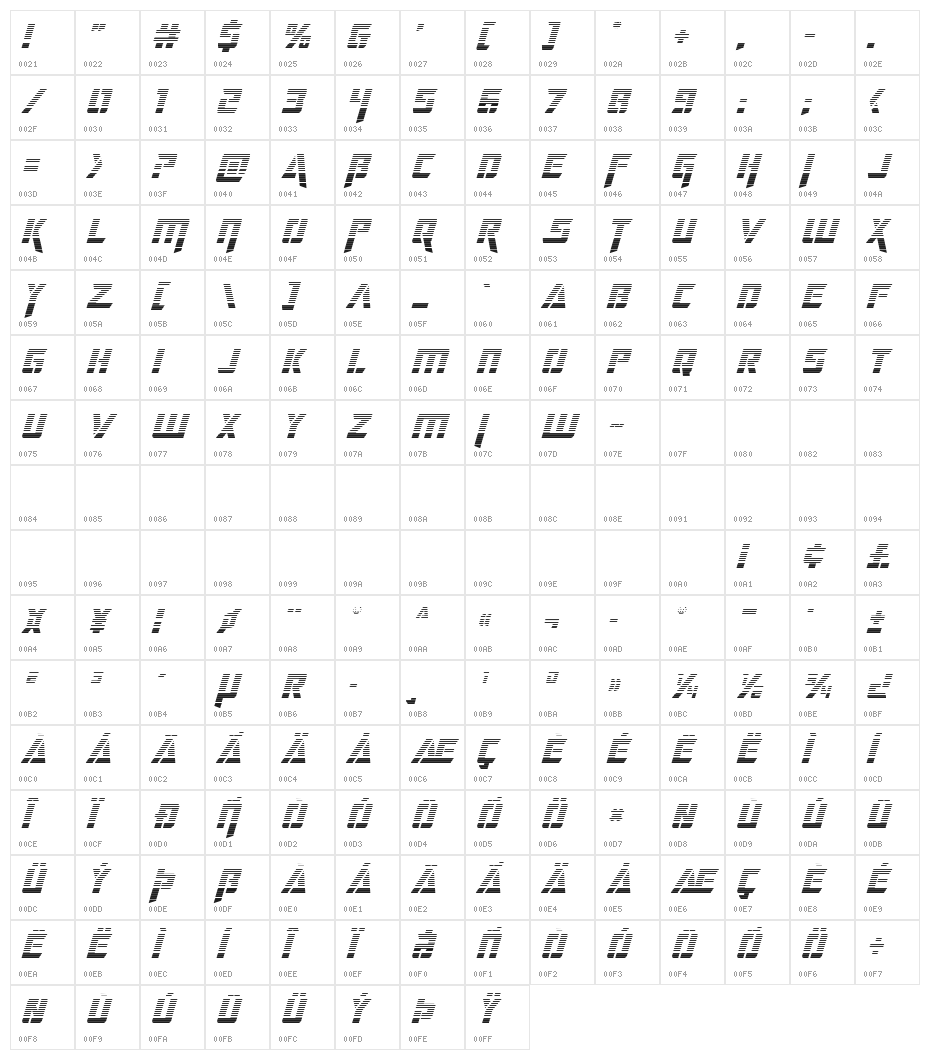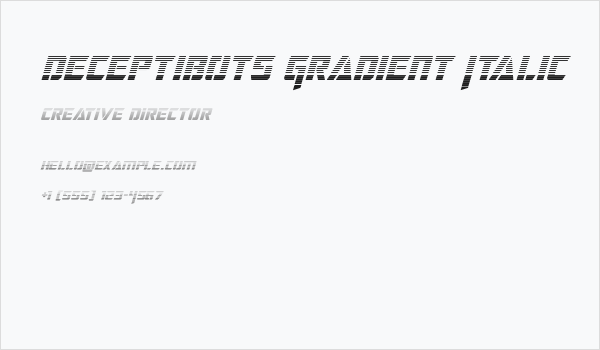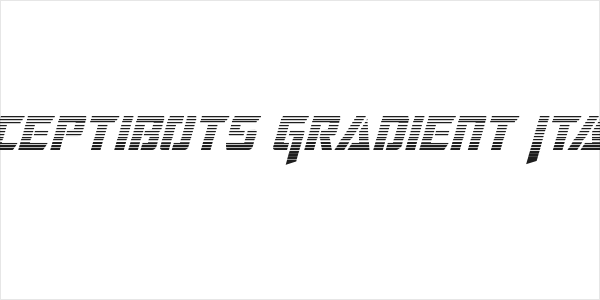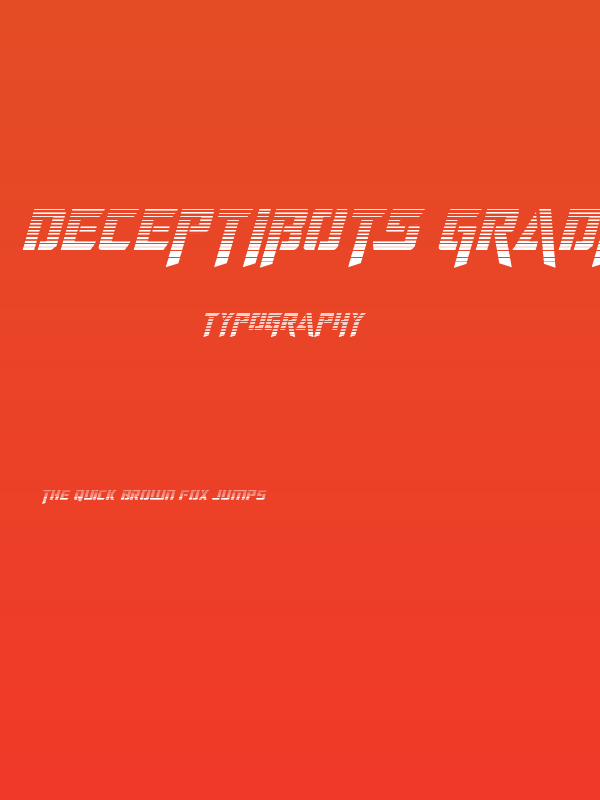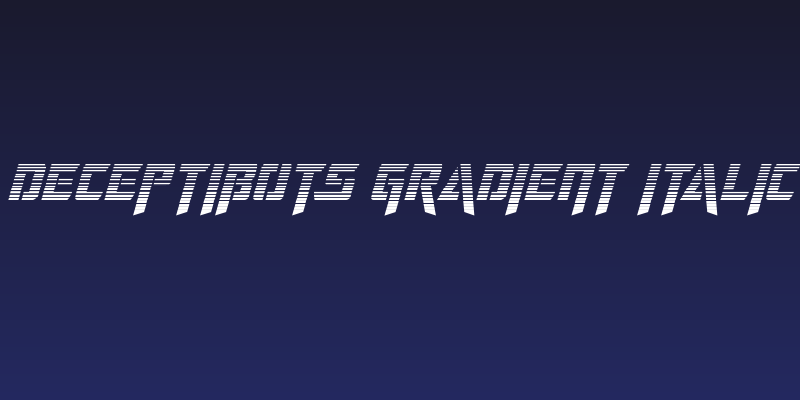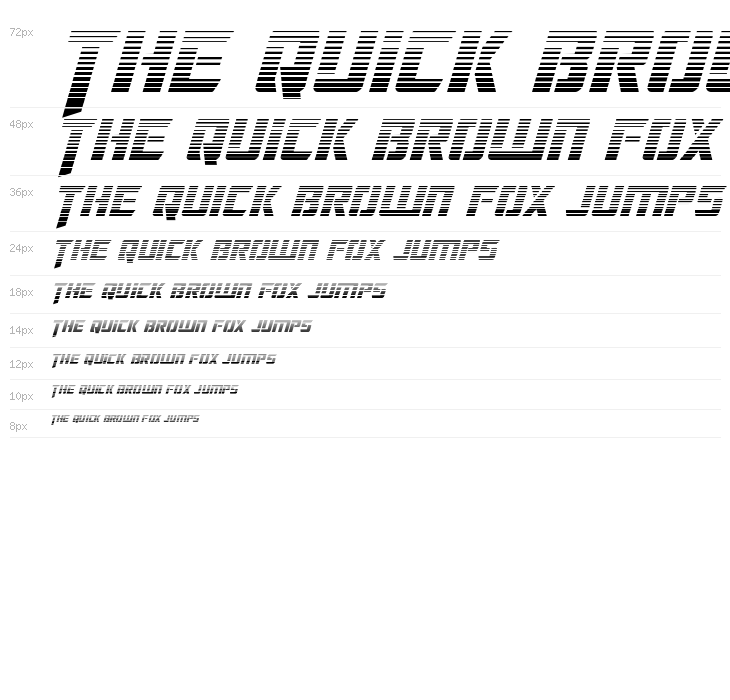
Deceptibots Gradient Italic Font
Deceptibots Gradient Italic Description
This font features a futuristic and dynamic design, characterized by its bold, italicized letters with a gradient effect. The characters are constructed with horizontal lines that create a sense of movement and energy. The angular and geometric shapes give it a modern and edgy appearance, making it stand out in any design. The uppercase and lowercase letters maintain a consistent style, with sharp edges and a slanted orientation that enhances the italic effect. The numbers and special characters follow the same design principles, ensuring uniformity across the font. This font is ideal for projects that require a bold and eye-catching typeface.
| Overall Style | Futuristic, Dynamic |
| Proposed Projects | Ideal for sci-fi themed posters, video game titles, tech branding, and futuristic event flyers. |